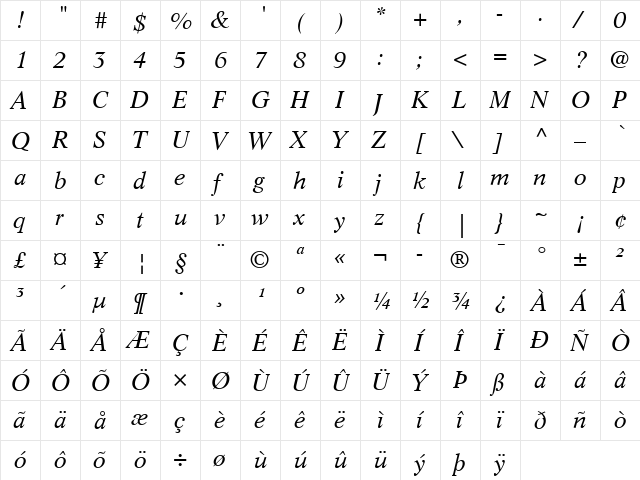
Life LT Roman Italic Font Preview
Life LT Roman Italic
Life LT Roman Italic Font Details
Design Context for Life LT Roman Typeface
Life LT Roman offers clean, dependable letterforms without strong stylistic allegiance, making it a practical choice for designers who need flexibility. Its italic angle brings a sense of urgency and motion to the letterforms. Its slender proportions lend an understated elegance to any composition.
Pro Tip: Use Life LT Roman for emphasis, pull quotes, and subheadings where its slanted energy can add rhythm to the layout.